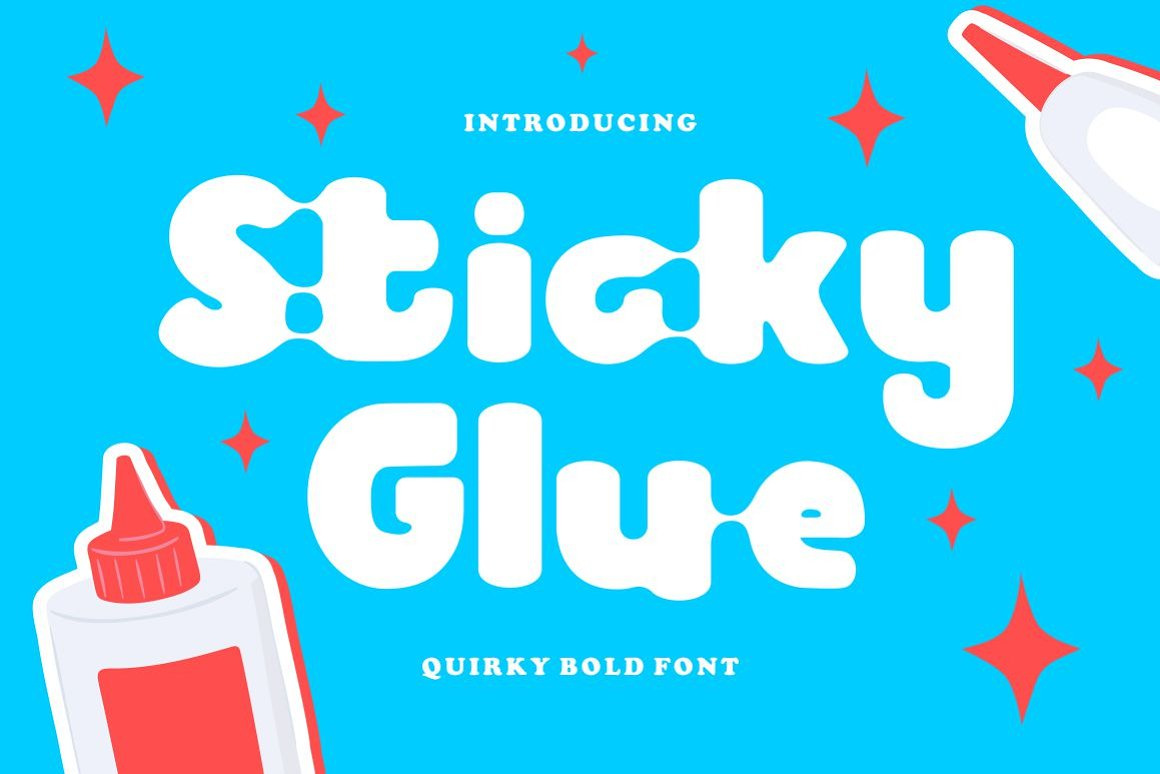
Sticky Glue - Quirky Bold Font
Sticky Glue is Quirky Bold Font. This font is a quirky font with a lot of character ligatures, as many as 325 ligatures. The concept of this font is to make the letters stick together, like glue. This font theme is more fun, playful and childish with quirky characters and displays. This font is suitable for your projects such as logos, branding, packaging, crafting, titles, books, headlines, posters, t-shirts, films and others. This font can be used and supported in various programs and OS, such as procreate, cricut, windows, macOS and others.